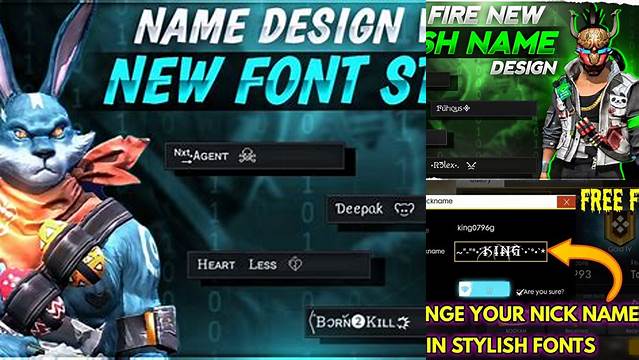
Stylish Free Fire Font Names: Stand Out In The Game
#FreeFire is a wildly popular battle royale game, and like any visually engaging game, its aesthetics play a crucial role in the overall experience. One often overlooked but significant aspect is the font used for in-game text, player names, and other visual elements. A stylish Free Fire font can add personality and flair, making your in-game persona stand out. In this comprehensive guide, we'll dive deep into the world of Free Fire fonts, exploring how they enhance the game's visual appeal, how to find and use stylish fonts, and everything else you need to know about this fascinating topic.
Why Font Matters in Free Fire
Let's talk about why font choices matter so much in Free Fire, guys. It's not just about seeing the words; it's about how those words make you feel and how they represent you in the game. Think of it like this: your in-game name is your identity. The font you use is like the style of your signature – it adds a personal touch.
- Visual Appeal and Identity: The font is one of the first things other players notice about your name. A stylish font can make your name memorable and visually appealing, helping you create a unique identity in the game. Imagine having a cool, edgy font that perfectly matches your gaming style – it’s like having a unique badge of honor.
- Readability and Clarity: While style is important, readability is crucial. A font needs to be easily readable so other players can quickly identify you. No one wants to squint and struggle to read a fancy but illegible name. The best stylish Free Fire fonts balance aesthetics with clarity, ensuring that your name looks cool and is easy to read.
- Emotional Connection and Immersion: Fonts can evoke emotions and contribute to the overall gaming experience. A bold, aggressive font might convey a sense of power and dominance, while a more subtle, elegant font could suggest sophistication and skill. The right font can enhance the game's atmosphere and draw you further into the Free Fire universe. It’s all about setting the right tone, guys.
- Personalization and Expression: In a game with millions of players, personalization is key to standing out. Using a unique font is a simple yet effective way to express your individuality and make your mark in the game. It's like choosing your avatar’s outfit – it's a reflection of your personality.
So, in short, fonts aren't just about letters; they're about making a statement and adding that extra bit of flair to your Free Fire persona. Let's get into how you can find some awesome fonts!
Finding Stylish Fonts for Free Fire
Now, let’s get to the fun part – finding those stylish fonts that will make your Free Fire name pop. There are several ways to discover unique and eye-catching fonts for your in-game name. Don't worry; it's easier than you might think.
Online Font Generators: The internet is your best friend when it comes to stylish fonts. Numerous websites offer font generators specifically designed for games like Free Fire. These tools allow you to type your name and instantly see it rendered in various stylish fonts. You can experiment with different styles and choose the one that best represents you. Some popular font generator websites include LingoJam, Fancy Text Generator, and Cool Text Online. These sites offer a wide range of font styles, from bold and aggressive to elegant and refined.
When using these generators, try out a few different options. Type your name and scroll through the list of fonts. You'll see options ranging from gothic and medieval styles to futuristic and playful ones. It's like a font buffet – pick what looks tasty! Remember to consider readability alongside style.
Unicode Fonts and Symbols: Free Fire supports Unicode characters, which opens up a world of possibilities for your in-game name. Unicode includes a vast array of symbols and alphabets, allowing you to create truly unique and stylish names. You can find Unicode character lists online and copy-paste them into your name. This can include anything from bold and italic versions of letters to completely different alphabets like Cyrillic or Greek.
Using Unicode can really set your name apart. Imagine mixing regular Latin letters with Cyrillic or adding special symbols like stars or swords. Just be mindful of keeping it readable. A name that looks like a random jumble of symbols might not be as effective as a well-thought-out combination of stylish characters.
Font Apps and Keyboards: Several mobile apps and keyboards offer stylish font options. These apps often include a wide variety of fonts that you can use across different platforms, including Free Fire. Some popular options include Fonts Keyboard and Stylish Text. These apps usually work by creating a custom keyboard that you can switch to when typing your name in the game.
These apps are super handy because they make it easy to use stylish fonts on your mobile device. You don't have to copy and paste from a website; just type directly into the app, and it will convert your text into the stylish font of your choice. This is a great option if you play Free Fire primarily on your phone or tablet.